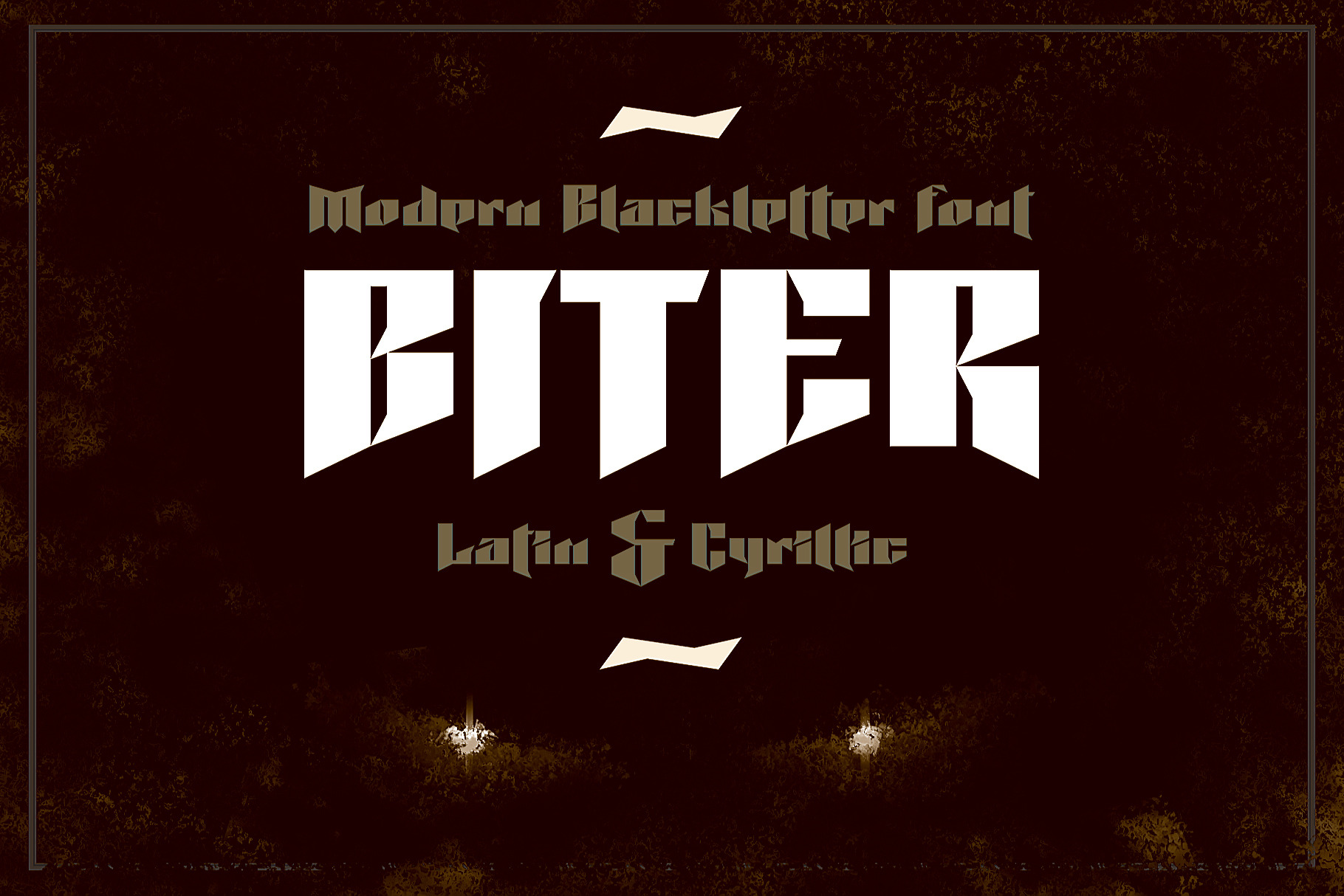
Biter | Modern gothic font
Biter is a high contrast, simple, blackletter font. Modern gothic. Well kerned. Including cyrillic. Perfect for logotypes, posters and app.